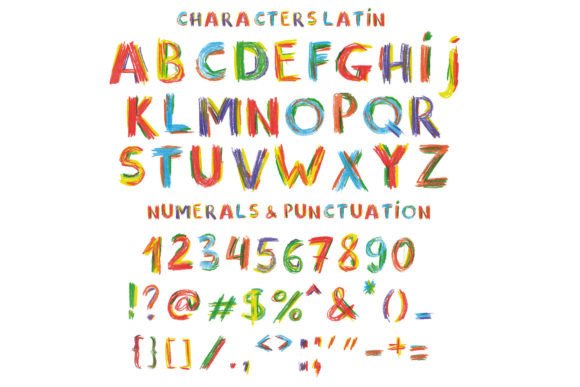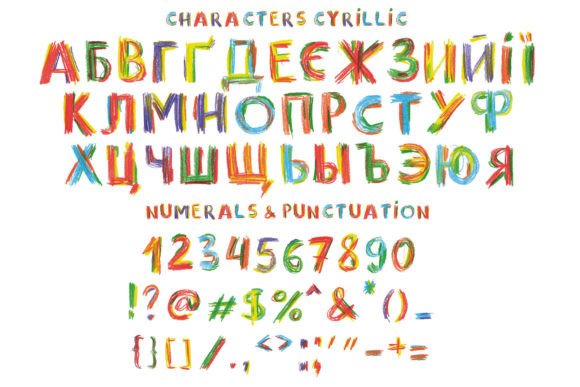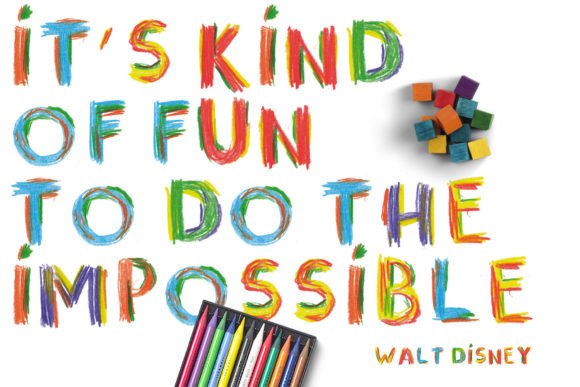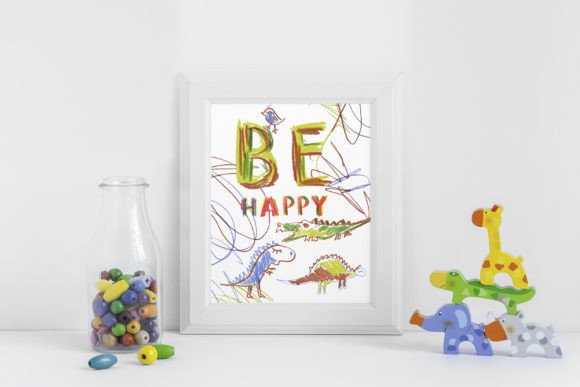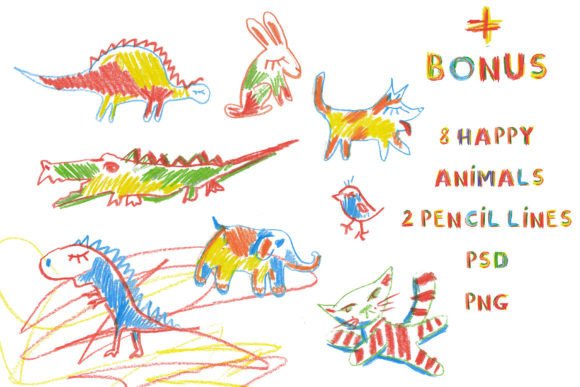
Introduction to Happy Pencil Font
Do you remember the thrill of creating a masterpiece as a child, with crayons and paint scattered all around you? The excitement of bringing your imagination to life was contagious, and the sense of pride when it was complete was unbeatable. As a designer, you may be looking for a way to recapture that magic in your creative projects. Enter the Happy Pencil Font, a delightful and playful color font that’s sure to bring a smile to your face and a touch of whimsy to your designs.
- Designed with a playful, hand-drawn aesthetic, making it ideal for children’s books, educational materials, and other creative projects.
Honest Review: Happy Pencil Font
I recently came across the Happy Pencil Font, and I must say, it’s been a delightful addition to my design resources. As a designer, I’m always on the lookout for high-quality fonts that can elevate my creative projects.
Here’s what I like about the Happy Pencil Font: ✨ It’s perfect for kids’ books, educational materials, and other projects where a playful, whimsical feel is required. The font is highly customizable, and it comes with a transparent background, making it easy to integrate with other design elements.
- High-quality design: The font is well-designed and looks great in print and digital formats.
However, there are a few limitations to consider: ⚠️ The font is not suitable for formal or professional projects, and it may not be the best choice for designs that require a more serious tone.
Overall, I’m impressed with the Happy Pencil Font. It’s a great addition to any designer’s toolkit, and it’s perfect for creative projects that require a playful touch.
Introduction to Happy Pencil Font
The Happy Pencil Font is a unique, high-quality design resource ideal for creative projects that require a touch of whimsy. With its transparent background, this font can be easily layered over images or illustrations, making it a versatile addition to any design.
Getting the Most Out of Happy Pencil Font
For the best results, use the Happy Pencil Font in conjunction with a high-quality image or illustration. Experiment with layering the font over different backgrounds to achieve a unique look.
The Happy Pencil Font is perfect for:
- Children’s book illustrations
- Wedding invitations
- Branding and marketing materials
Yes, the Happy Pencil Font is designed to work seamlessly with transparent backgrounds, making it ideal for use in graphic design, digital art, and other creative projects where a transparent background is required.